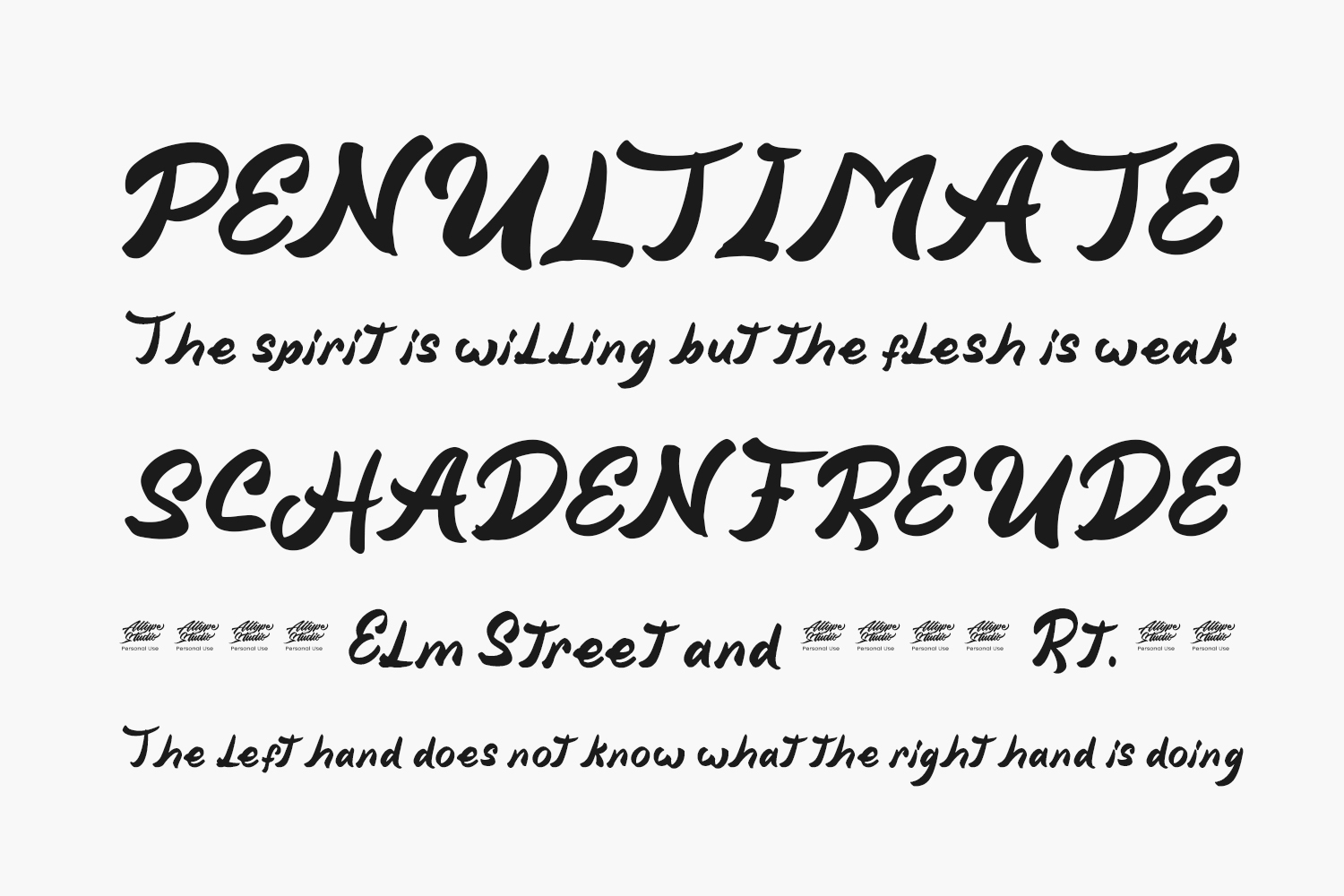
Niagato is a cute and quirky handwritten font. It will add an incredibly joyful touch to your designs. Add this beautiful font to each of your creative ideas and notice how it makes them stand out. Free Font was designed by Attype Studio is a demo and free for personal use only. Please purchase the full version for commercial use.
Designed by Attype Studio